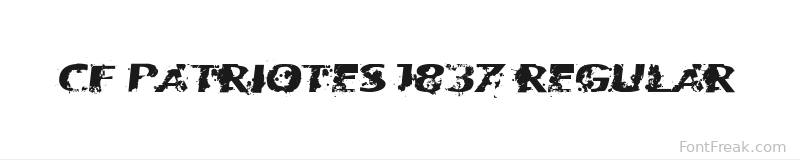
CF Patriotes 1837 Regular
About CF Patriotes 1837 Regular
CF Patriotes 1837 Regular is a striking display font from Cloutierfontes, categorized as a decorative typeface. This font exhibits a unique blend of ruggedness and historical appeal, making it an excellent choice for various creative projects. Its visual characteristics include a bold stroke weight and a textured appearance that evokes a sense of authenticity and nostalgia. The spacing between letters allows for clarity while maintaining a strong presence, making it visually engaging for the viewer.
This font is particularly suited for use cases that require an assertive and memorable typography choice. It works wonderfully for historical-themed events, such as anniversaries or commemorations, lending an air of tradition and significance. Additionally, CF Patriotes 1837 Regular is ideal for promotional materials related to local businesses or artisanal markets, where a personal touch is essential. Its bold aesthetic makes it perfect for eye-catching signage, restaurant menus, and even movie posters that aim to convey a strong narrative or theme. Graphic designers, small business owners, and content creators will find this font to be an invaluable asset in their toolkit.
What sets the CF Patriotes 1837 Regular font apart is its ability to blend modern design sensibilities with a vintage edge. The font draws inspiration from historical typography, yet it remains versatile enough to fit contemporary design needs. With its free download availability, it offers both accessibility and creativity for those looking to enhance their projects. Whether you are creating a striking visual campaign or a heartfelt invitation, CF Patriotes 1837 Regular stands out as a compelling choice that can elevate your work while conveying a rich sense of history.